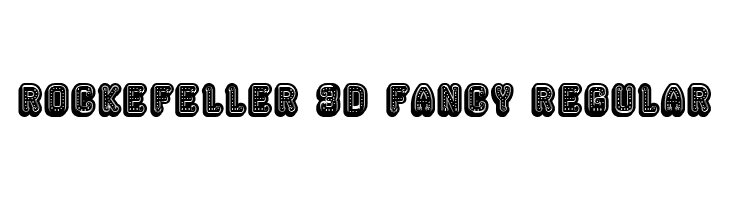
A bold, 3D decorative font with intricate dot and line details.
A bold, decorative font with intricate dot detailing inside each character.
A bold, 3D hollow font with dotted interiors and thick outlines.
A bold, 3D font with a playful and extravagant style, featuring thick outlines and rounded edges.
A bold, 3D decorative font with a vintage marquee light style.
A bold, 3D hollow font with a playful and striking design.
A bold, 3D decorative font with thick outlines and playful design.
A bold, decorative font with a unique dotted pattern.
A bold, playful 3D font with a dotted fill and shadow effect.
A bold, decorative font with a unique outline and inline design, perfect for striking headlines.